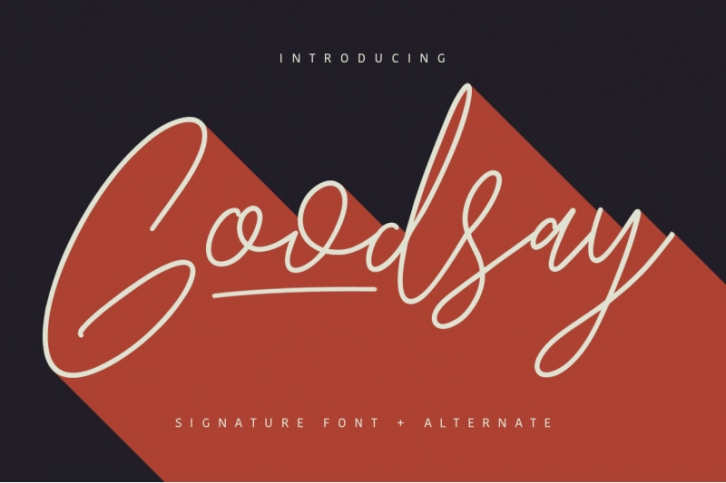
Goodsay Signature FONT Download
Goodsay Signature Font Download
Give your designs an authentic handcrafted feel. "Goodsay" is perfectly suited to signature, stationery, logo, typography quotes, magazine or book cover, website header, clothing, branding, packaging design and more. Included 2 Font, Regular and Alternate.